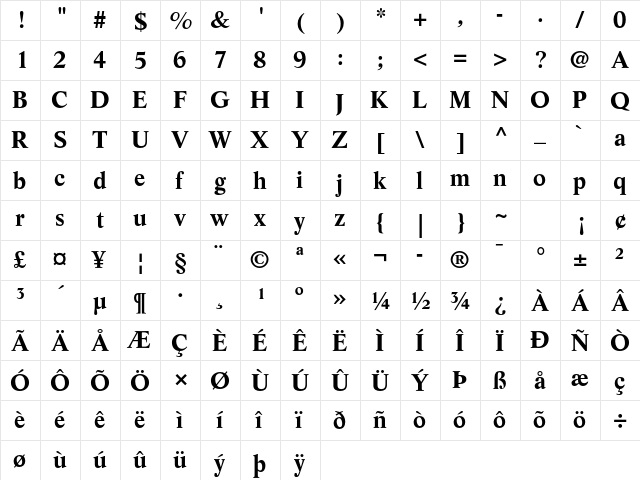
Life LT Std Bold Font Preview
Life LT Std Bold
Life LT Std Bold Font Details
| Designer | W. Bilz |
Design Context for Life LT Std Typeface
Life LT Std takes a measured approach to typography — its balanced proportions and neutral character make it a reliable workhorse for both digital and print work. The heavy weight commands attention and anchors typographic hierarchies.